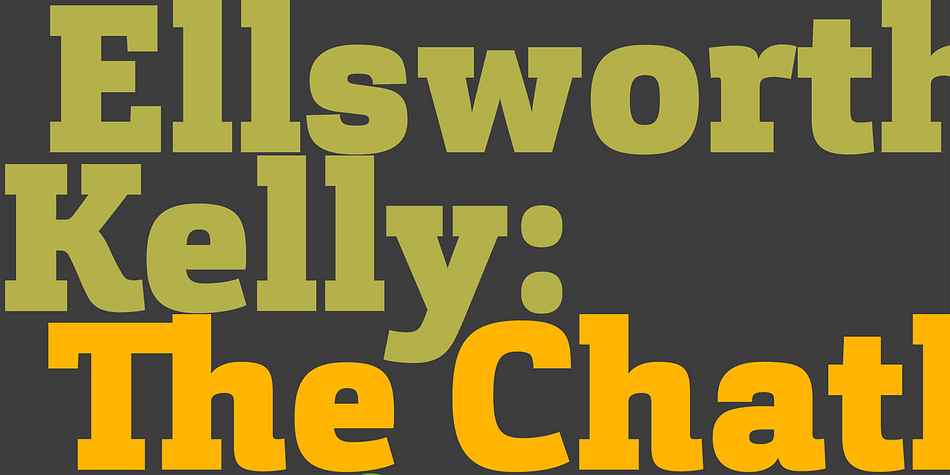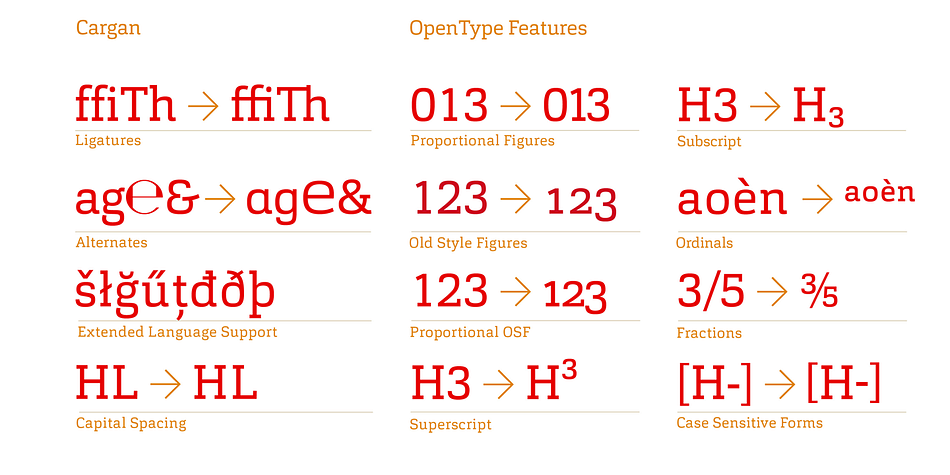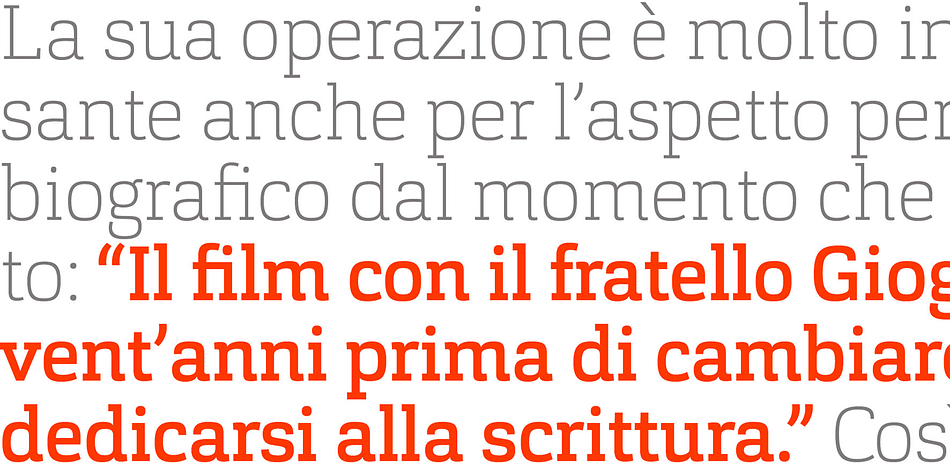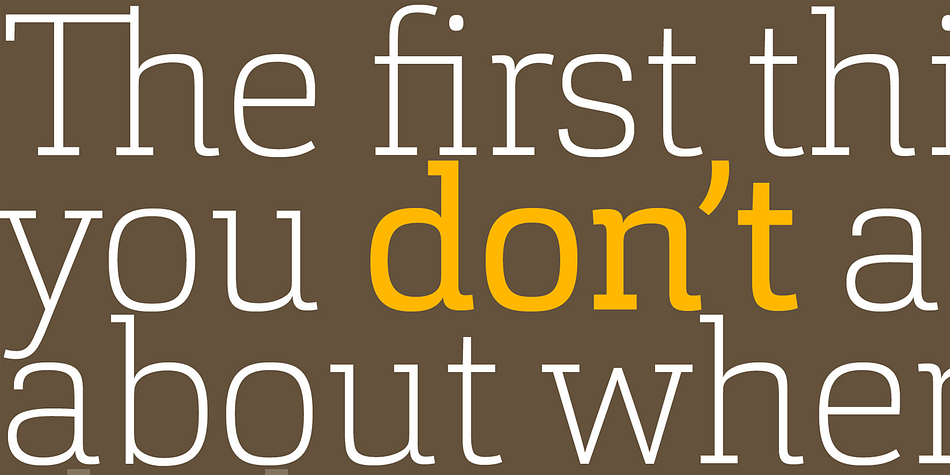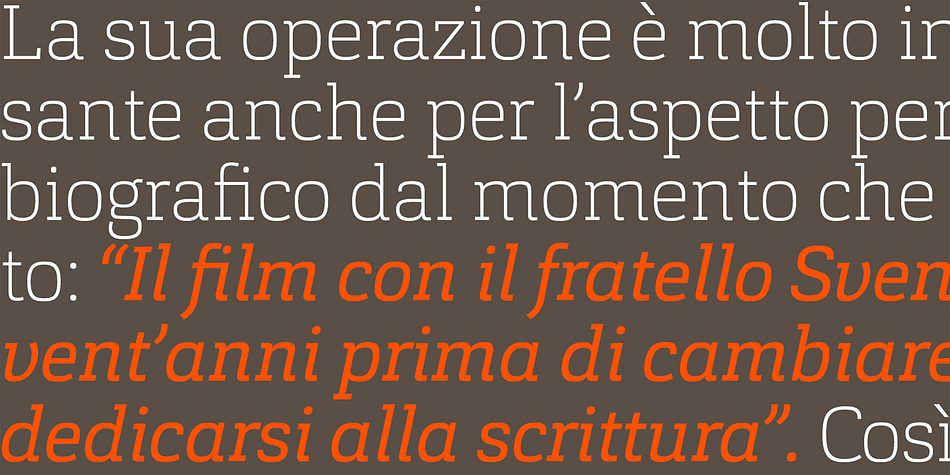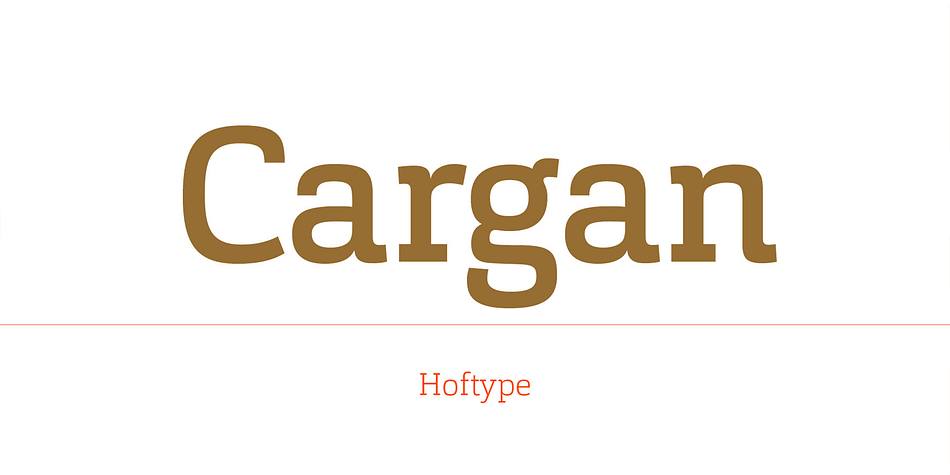
Cargan is a slab serif font family. This typeface has sixteen styles and was published by Hoftype.
Cargan merges the strength of the slab serif with a gentle line flow. The result is a versatile typeface family with a distinct personality that performs superbly in headlines as well as subheads and shorter text applications.
The Cargan family consists of 16 styles and is well suited for ambitious typography. It comes in OpenType format with extended language support. All weights contain ligatures, superior characters, proportional lining figures, tabular lining figures, proportional old style figures, lining old style figures, matching currency symbols, fraction- and scientific numerals and matching arrows. The roman styles offer alternative versions for the ”a” and ”g” characters.